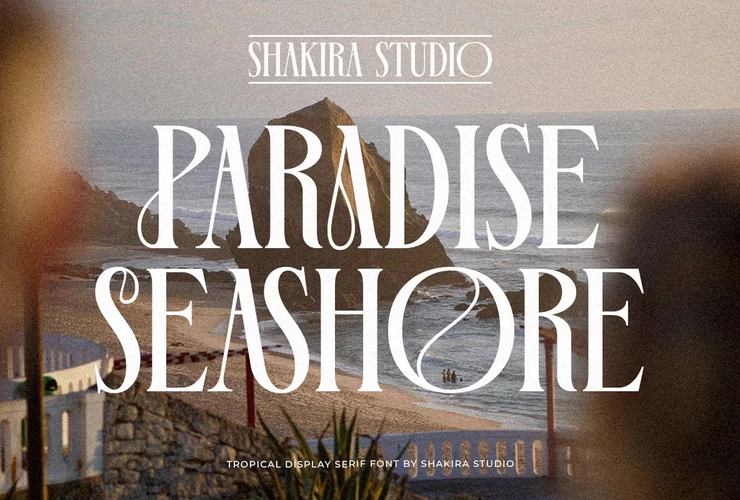
Enhance Your Design with Paradise Seashore – Tropical Serif
Paradise Seashore, brought to you by Shakira Studio, is a luxurious modern tropical Display Serif font that embodies elegance and sophistication. With its variety of attractive alternates and ligatures, this typeface is perfect for creating captivating headlines, branding, and editorial pieces.
Key Features of Paradise Seashore – Tropical Serif
Versatile Styles: Available in both Regular and Italic versions, Paradise Seashore offers flexibility for all your design needs.
Opentype Features: Includes ligatures and alternates, allowing for enhanced creativity and uniqueness in your designs.
Ideal Uses for Paradise Seashore – Tropical Serif
Paradise Seashore is perfect for a range of design applications, offering a touch of tropical elegance to your projects:
Headlines: Create eye-catching and sophisticated headlines.
Branding: Elevate your brand identity with a refined and elegant typeface.
Editorial Pieces: Enhance the visual appeal of your articles and publications.
Social Media Graphics: Add a luxurious touch to your social media posts.
Invitations: Design stunning invitations for events and celebrations.
Discover the Elegance of Paradise Seashore
Shakira Studio’s Paradise Seashore is more than just a font; it’s a tool for elevating your designs with a touch of tropical sophistication. With its luxurious style and versatile features, this typeface is a must-have for any designer looking to add a refined aesthetic to their projects.